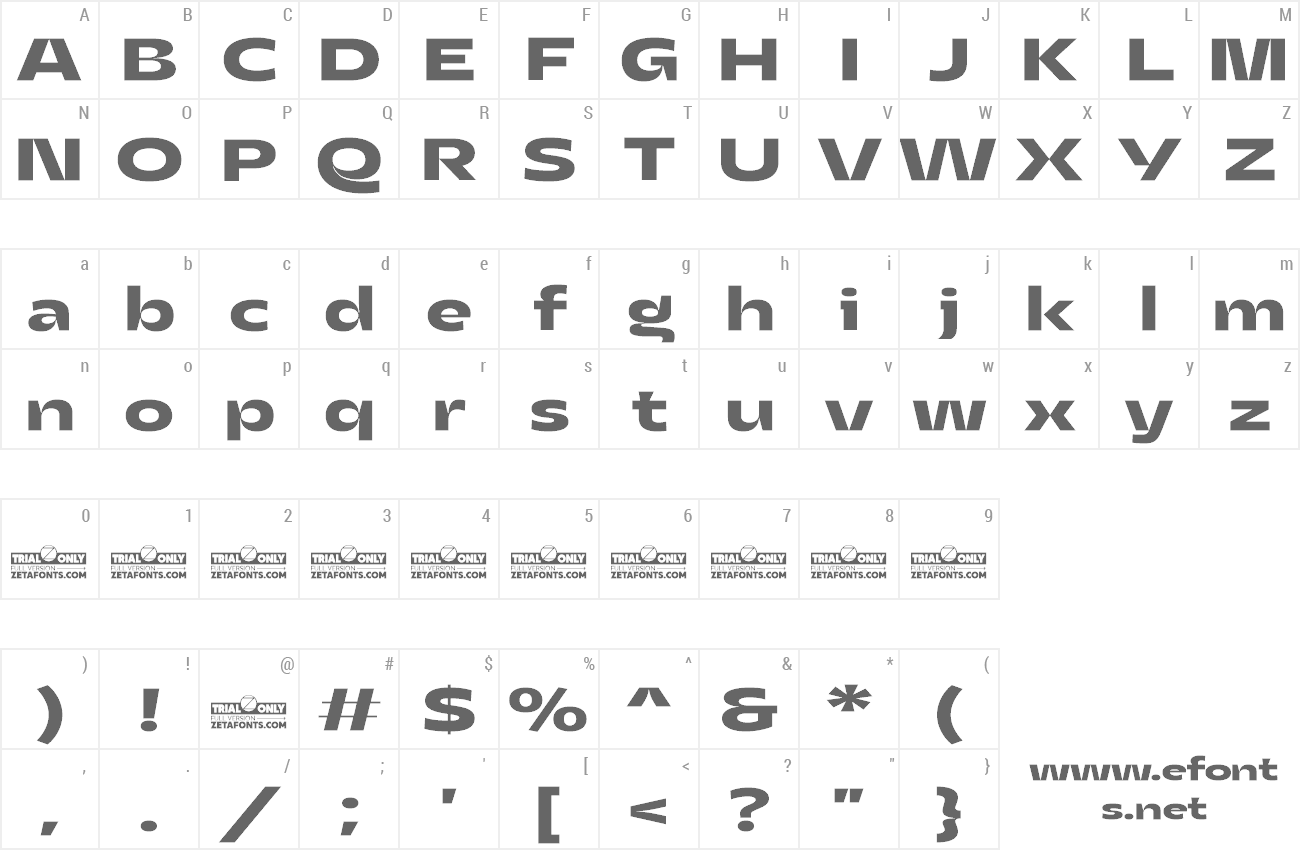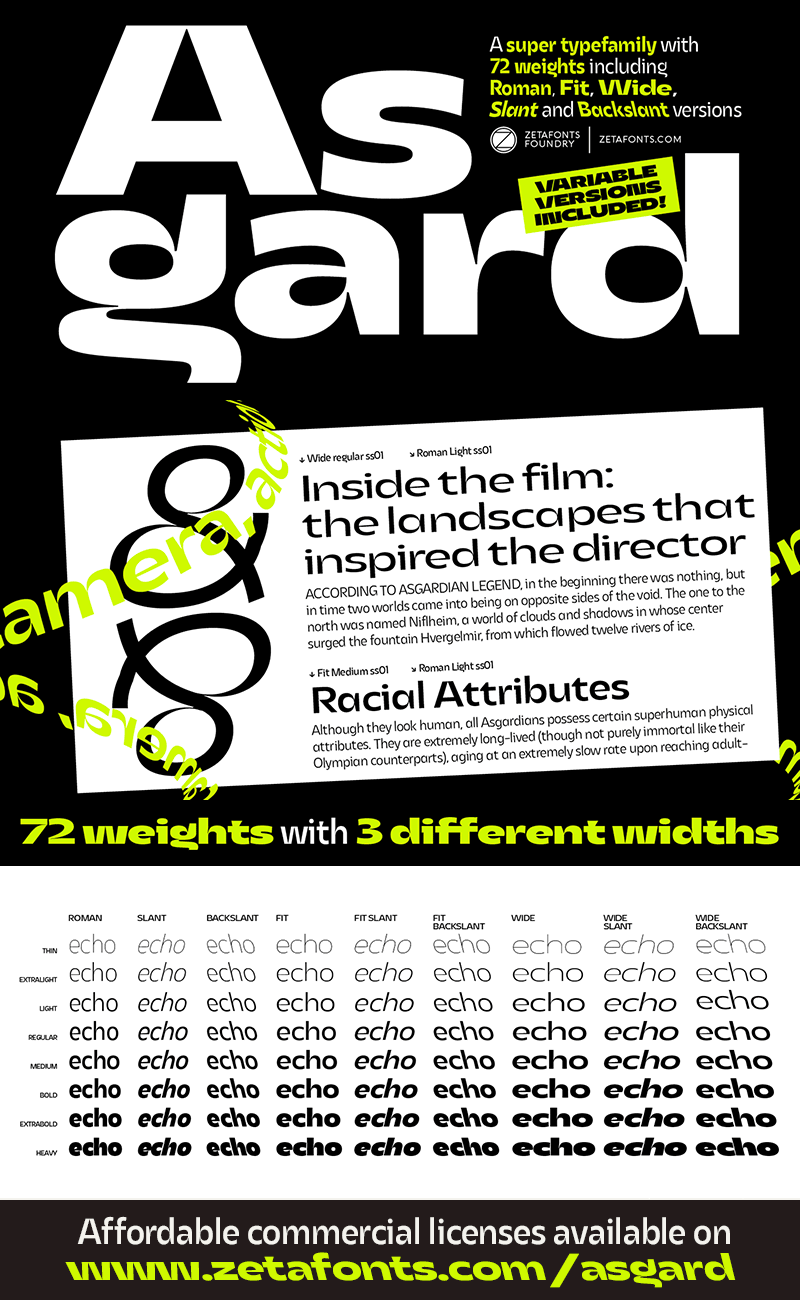
Preview and download Asgard Wide Font. Created by Zetafonts in Basic Sans serif styles with Free for personal use license.
| Font name: | Asgard Wide |
| Author: | Zetafonts |